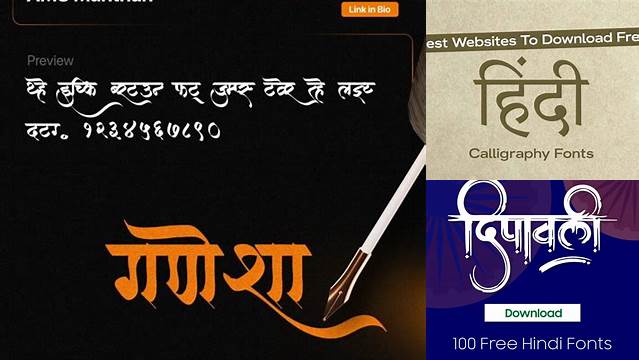
Download Free Hindi Calligraphy Fonts: Best Picks For 2024
Hey guys! Are you looking to add some flair to your designs with beautiful Hindi calligraphy? You're in the right place! In this article, we'll dive deep into the world of Hindi calligraphy fonts, and I'm going to show you where you can find some amazing fonts for free. Whether you're a graphic designer, a student, or just someone who loves the beauty of Hindi script, this guide is for you. Let's get started and explore the best Hindi calligraphy fonts available for free download, enhancing your creative projects with elegance and style.
Understanding the Beauty of Hindi Calligraphy Fonts
Before we jump into the fonts themselves, let's take a moment to appreciate what makes Hindi calligraphy so special. The Devanagari script, used for Hindi, is inherently graceful, with its flowing lines and intricate curves. Calligraphy takes this natural beauty and amplifies it, creating fonts that are not just readable but also visually stunning. These fonts can add a touch of tradition, elegance, and authenticity to any project. You can use calligraphy fonts in a wide range of projects, including wedding invitations, posters, social media graphics, and even website designs. The artistry of Hindi calligraphy lies in its ability to convey emotions and cultural nuances through the written word, making it a powerful tool for visual communication. Different styles of calligraphy can evoke different feelings, from the formality of traditional scripts to the playfulness of more modern interpretations. So, understanding the nuances of Hindi calligraphy helps you select the perfect font to match the tone and purpose of your design, ensuring your message is conveyed effectively and beautifully. Choosing the right font can transform a simple text into a work of art, capturing the essence of the message and enhancing its visual impact.
Why Use Hindi Calligraphy Fonts?
There are so many reasons to use Hindi calligraphy fonts in your projects! First off, they add a unique cultural touch that can really make your work stand out. If you're designing something for a Hindi-speaking audience, using a calligraphy font shows that you've put in the effort to connect with them on a deeper level. Using Hindi calligraphy fonts not only enhances visual appeal but also adds a layer of cultural relevance and authenticity to your designs. This can be particularly important in projects aimed at Hindi-speaking audiences, where the use of traditional scripts can create a stronger emotional connection. Moreover, calligraphy fonts bring an element of artistry and sophistication to your projects, elevating them beyond the ordinary. They can transform simple text into visually stunning pieces, making your message more memorable and impactful. Whether you're working on wedding invitations, posters, or branding materials, incorporating Hindi calligraphy can give your designs a distinctive and elegant touch. Furthermore, these fonts can help preserve and promote the rich heritage of Hindi language and script, ensuring that traditional forms of writing continue to be appreciated and used in contemporary contexts. By choosing Hindi calligraphy fonts, you're not just making a design choice; you're also contributing to the cultural significance and artistic expression of the language.
What to Consider When Choosing a Font
Okay, so you're sold on using Hindi calligraphy fonts – awesome! But before you download the first fancy font you see, there are a few things to keep in mind. First, think about the project you're working on. Is it a formal invitation? A fun poster? The tone of your project will help you narrow down your choices. The intended use of your design should heavily influence your font selection. For formal projects like wedding invitations or official documents, you'll want to choose fonts that are elegant, refined, and easy to read. These fonts often feature intricate details and a classic appearance, adding a touch of sophistication to your text. On the other hand, if you're working on a more casual project like a poster or social media graphic, you might opt for a font that is more playful and modern. These fonts can be bolder, more stylized, and even include decorative elements that make them stand out. Secondly, consider the readability of the font. A beautiful font is useless if no one can read it! Make sure the letters are clear and well-spaced, especially if you're using the font for body text. Readability is paramount, especially when dealing with longer texts or smaller font sizes. A font that looks stunning at a large size might become illegible when reduced, so it's essential to test it in different contexts. Finally, think about licensing. Many free fonts come with restrictions on how you can use them, so always double-check the license before you start designing. Understanding the font's licensing terms ensures that you're using it legally and ethically, avoiding any potential copyright issues. This is particularly important for commercial projects, where you'll need to ensure that the font can be used without any limitations. By considering these factors, you can make an informed decision and select a Hindi calligraphy font that not only looks beautiful but also suits the specific needs of your project.
Top Free Hindi Calligraphy Fonts
Alright, let's get to the good stuff! I've scoured the web and found some fantastic free Hindi calligraphy fonts that you can download right now. These fonts are perfect for a variety of projects, and they're all free for personal use (be sure to check the license if you're planning to use them commercially). Here are some of my favorites:
1. KFGQPC HINDI FONTS
KFGQPC Hindi Fonts are a popular choice among designers and typographers, offering a diverse collection of elegant and stylish fonts that capture the essence of Hindi calligraphy. This collection includes a wide range of styles, from traditional to modern, making it versatile for various design projects. The fonts are known for their high quality and attention to detail, ensuring that each character is beautifully crafted and legible. Many designers appreciate the KFGQPC fonts for their ability to add a touch of sophistication and cultural authenticity to their work. These fonts are particularly well-suited for projects such as wedding invitations, posters, and branding materials where a traditional yet refined look is desired. Additionally, KFGQPC fonts are often favored for their compatibility with various design software, making them easy to integrate into your workflow. The KFGQPC Hindi Fonts are a reliable choice for anyone looking to enhance their designs with the beauty of Hindi calligraphy. The intricate letterforms and balanced spacing make them a joy to work with, allowing you to create stunning visuals that resonate with your audience. Whether you're a seasoned designer or just starting out, exploring the KFGQPC collection can provide you with the perfect fonts to elevate your creative endeavors. The diverse styles within the collection ensure that you can find a font that matches the specific tone and purpose of your project, whether it's formal, casual, or something in between. Using KFGQPC fonts can help you create designs that not only look beautiful but also effectively communicate your message.
2. Kruti Dev
Kruti Dev is one of the most widely used Hindi fonts, especially in government and official documents in India. Its classic and formal style makes it a reliable choice for professional applications. If you're working on a project that requires a traditional and official look, Kruti Dev is an excellent option. Kruti Dev has become a staple in the world of Hindi typography due to its versatility and ease of use, especially in official and governmental contexts. This font is particularly valued for its clear and legible letterforms, which make it suitable for documents that require high readability. Its traditional style ensures that it maintains a professional and formal appearance, making it an ideal choice for reports, legal documents, and other official communications. One of the key reasons for Kruti Dev's widespread adoption is its long-standing presence and compatibility with various software and platforms. Many users are familiar with its character mapping, which simplifies the typing process and ensures consistency across different applications. Moreover, the font's clear design allows it to be easily read in both print and digital formats, further enhancing its utility. While Kruti Dev may not be the most decorative or artistic option, its reliability and practicality make it an indispensable tool for anyone working with Hindi text in a professional setting. Its widespread use also means that documents created with Kruti Dev are likely to be easily accessible and readable by a broad audience, ensuring effective communication. For those seeking a font that combines tradition with functionality, Kruti Dev remains a top choice.
3. Chanakya
Chanakya is another popular Hindi font known for its elegant and readable design. It's a great choice for body text as well as headings. If you need a font that's versatile and easy on the eyes, Chanakya is worth checking out. The Chanakya font is renowned for its blend of elegance and readability, making it a versatile option for various design and writing purposes. This font is particularly well-suited for both body text and headings, providing a harmonious visual experience for the reader. Its clean and well-defined letterforms ensure that text remains legible even at smaller sizes, making it an excellent choice for documents, articles, and websites. The aesthetic appeal of Chanakya lies in its subtle sophistication, which adds a touch of class to any project without being overly ornate. This balance makes it suitable for a wide range of applications, from formal documents to creative designs. Designers often choose Chanakya for its ability to maintain clarity while still conveying a sense of style and professionalism. One of the key strengths of the Chanakya font is its ability to adapt to different contexts. Whether you're composing a lengthy report or crafting a visually engaging poster, Chanakya provides a consistent and pleasing appearance. Its balanced design ensures that it complements the overall aesthetic of your project, enhancing the readability and visual impact. For those seeking a Hindi font that combines functionality with a touch of elegance, Chanakya is a reliable and highly recommended option. Its versatility and readability make it a valuable asset for any designer or writer working with Hindi text.